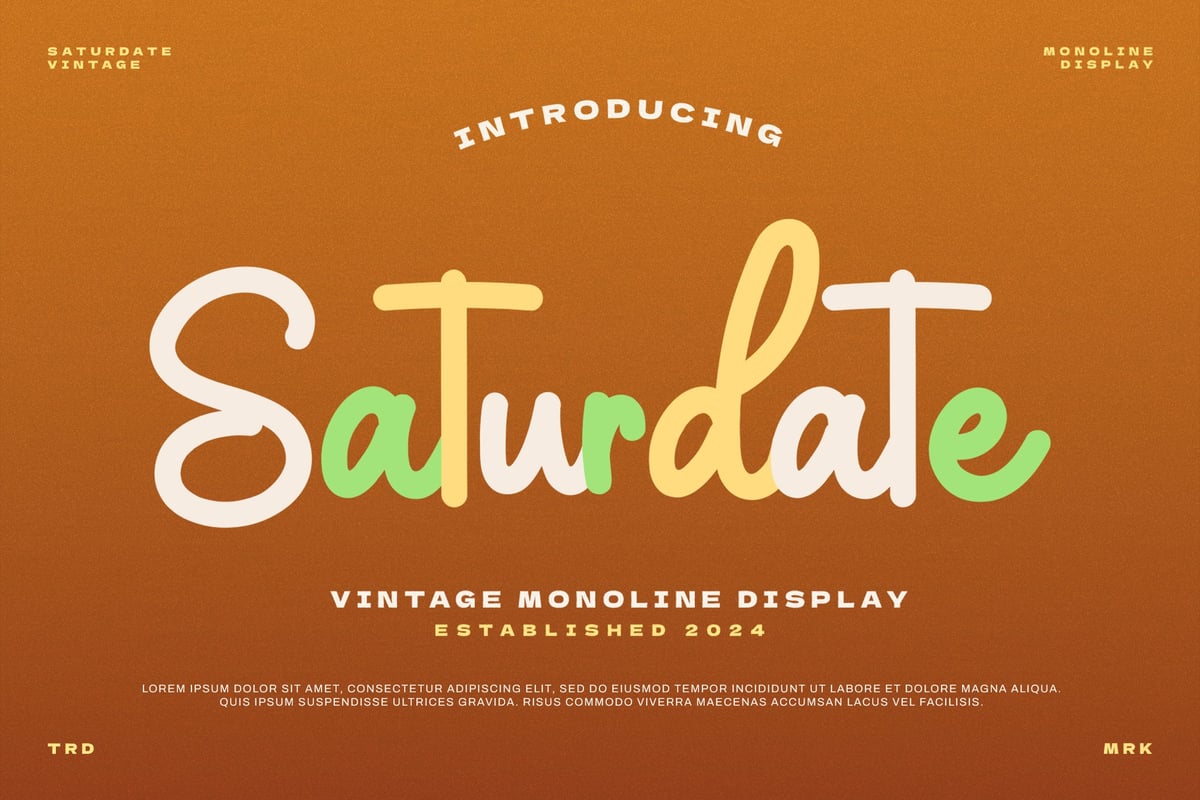
Saturdate – Script Handwritten Typeface
A smooth, casual script typeface built for branding, invitations, and everyday creative work.
Saturdate is a handwritten script font with flowing curves, consistent rhythm, and a natural, personal feel. Its relaxed movement makes it a versatile choice for any project that calls for a friendly and approachable tone.
Saturdate works beautifully across a wide range of applications, including:
- Branding and logo design
- Quotes and social media graphics
- Invitations and greeting cards
- Product packaging and labels
The typeface includes uppercase and lowercase letters, numerals, punctuation, ligatures, and stylistic alternates. It also features multilingual support, making it a practical choice for international projects.